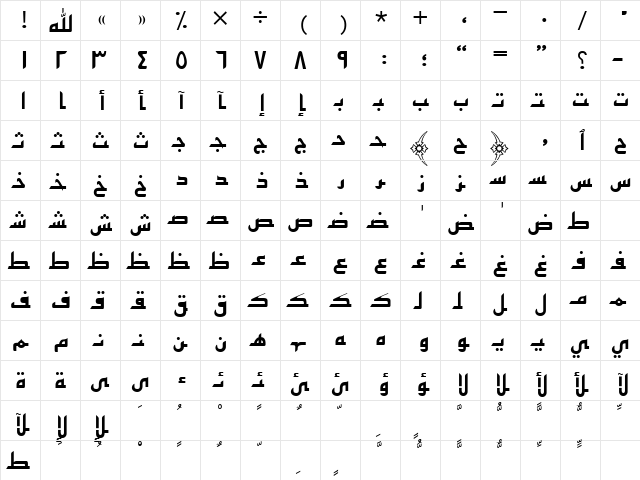
PersianKufiSSK Regular
Design Context for PersianKufiSSK Typeface
PersianKufiSSK is a composed and adaptable typeface that performs quietly and consistently across a wide range of design contexts.